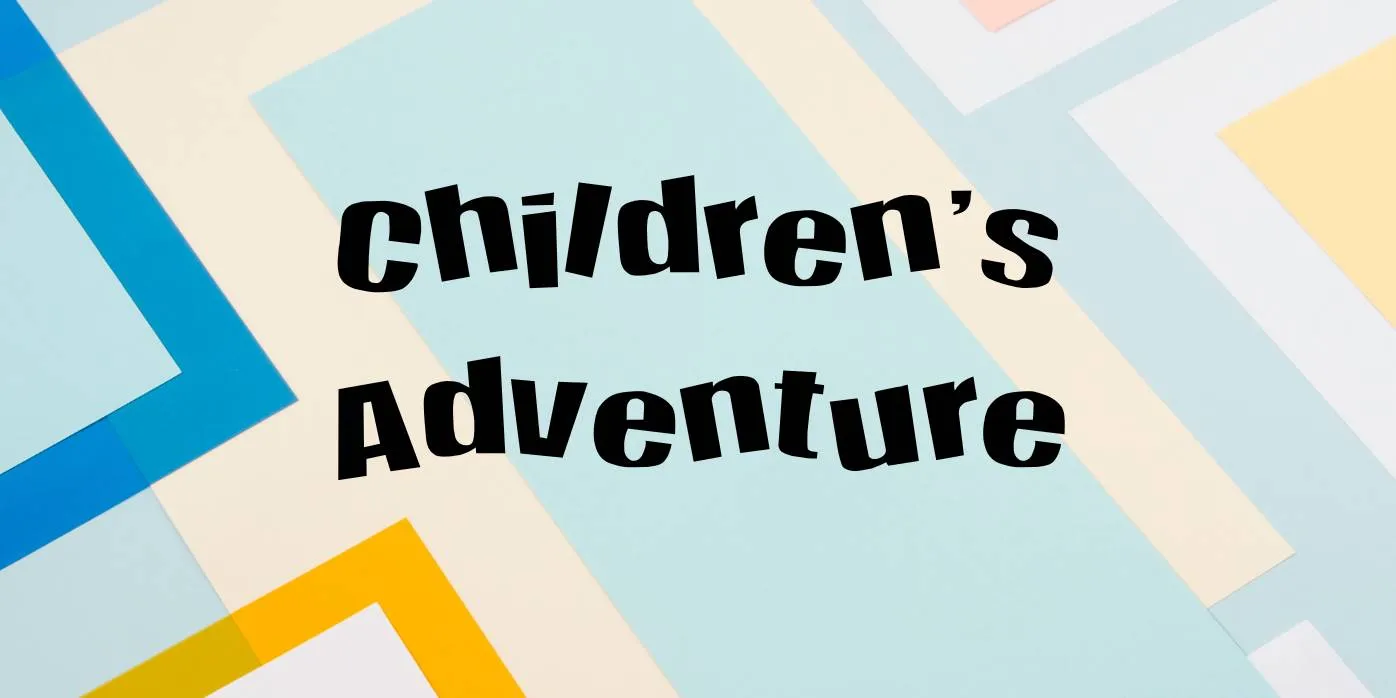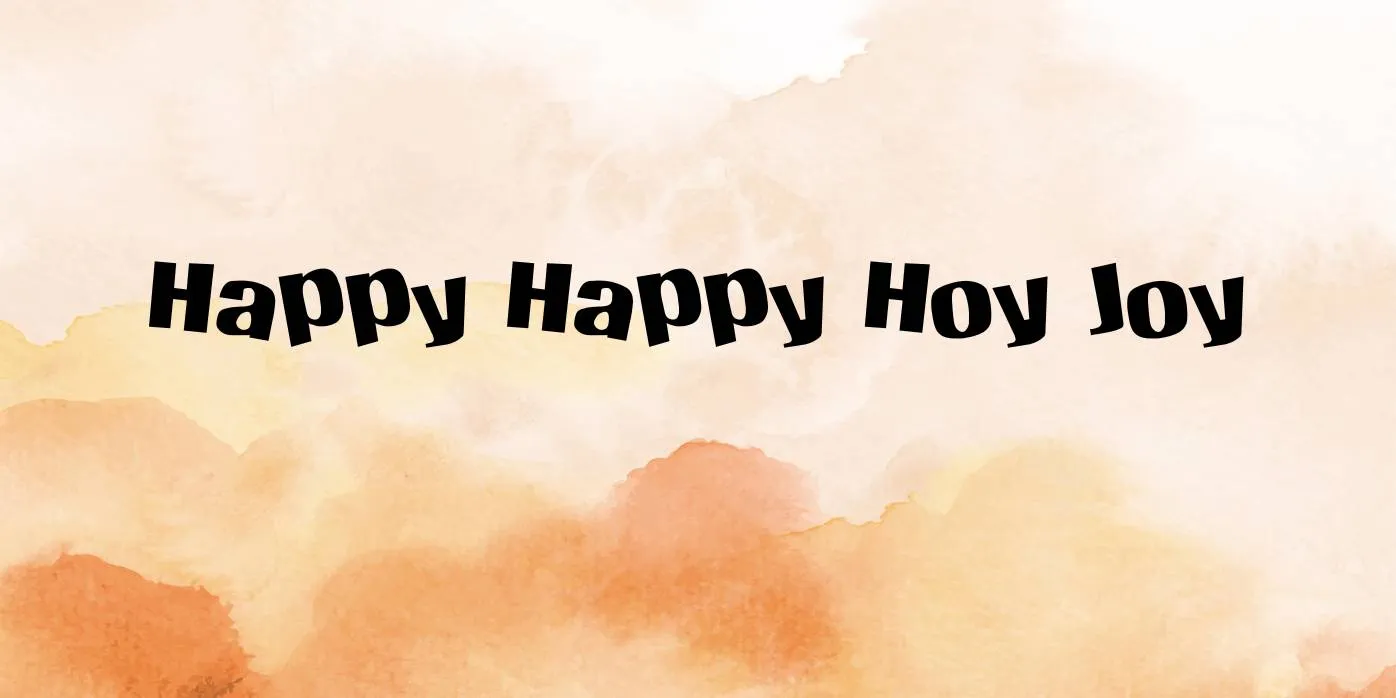
Happy Happy Joy Joy Font
Annie de la Vega is the designer for this typeface. Happy Happy Joy Joy Font is a decorative type of font that has bold and readable characters. This typeface is free for personal use. But if you want to use this typeface in a commercial area, then the condition will be applied to you.
This typeface has exceptional qualities for pairing with this typeface. But have the extraordinary similarities and differences. This pair can fit in almost every type of project and design. The copy-paste tool for this typeface is also amazing.